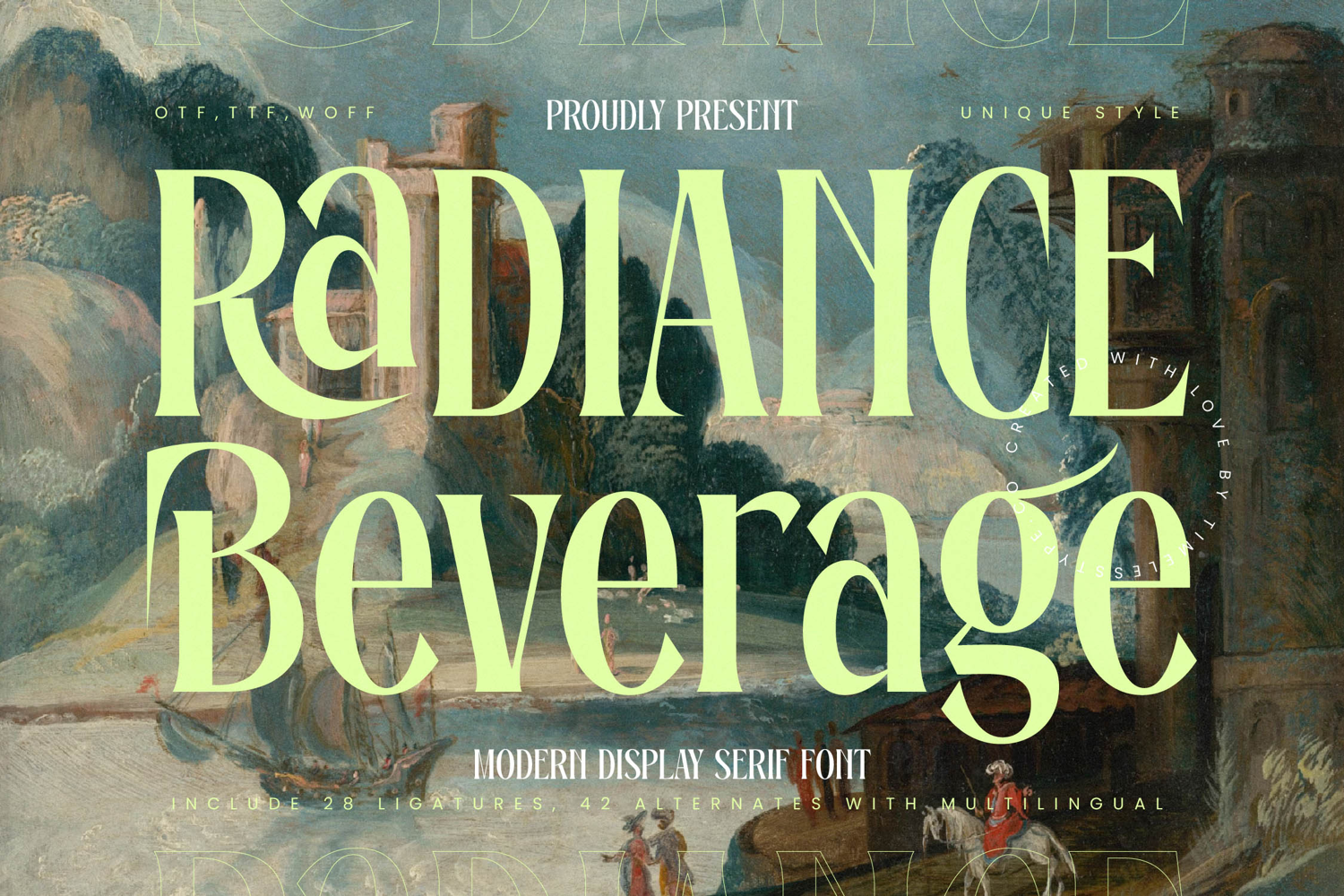
Radiance Beverage - Modern Display Serif Font
Radiance Beverage is a modern display serif font that merges bold elegance with refined artistic flair. With its tall letterforms, sharp serifs, and subtle curves, this typeface offers a sophisticated balance between classical tradition and modern design. Created with 28 ligatures and 42 alternates, Radiance Beverage provides endless versatility for designers, ensuring every composition feels fresh, distinctive, and stylish. Its unique structure makes it a strong choice for projects that require both impact and elegance.